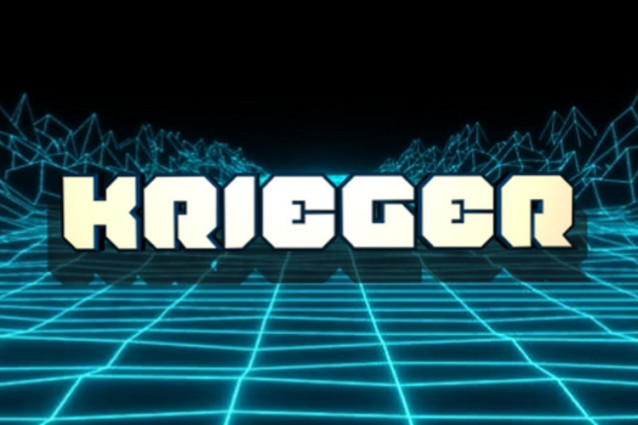
Krieger Font
Krieger Font has a classic, blocky, nose-like style reminiscent of synthwave or 80s video games.Characteristics: Bold capital letters, sharp edges and a slight drop shadow effect.Style: High-tech, futuristic feel with neon green grid lines in the background.The font is designed to fit the electronic theme, giving it a dynamic and powerful feel.